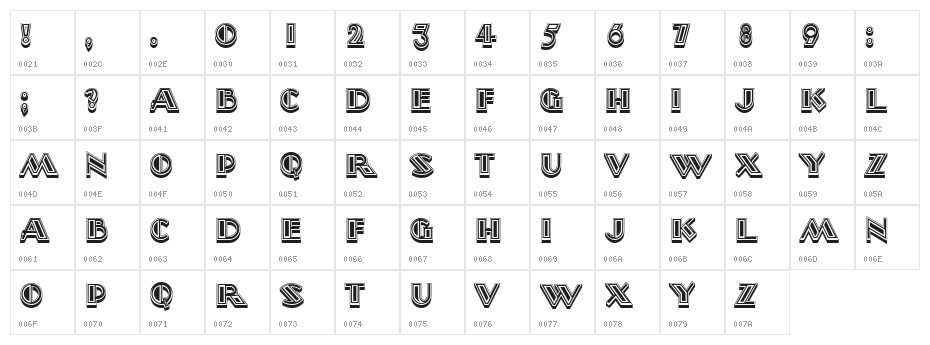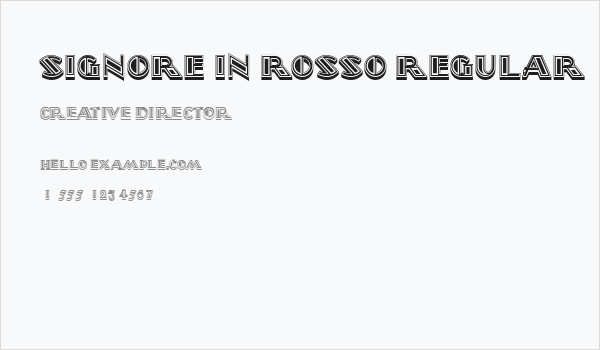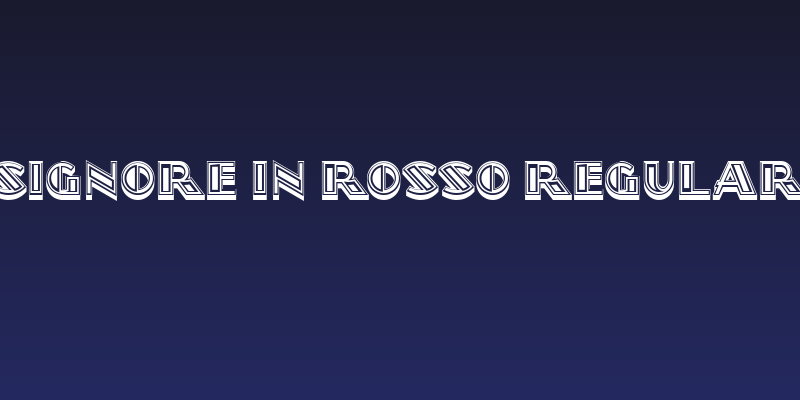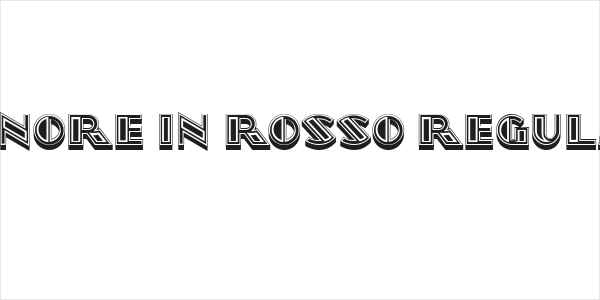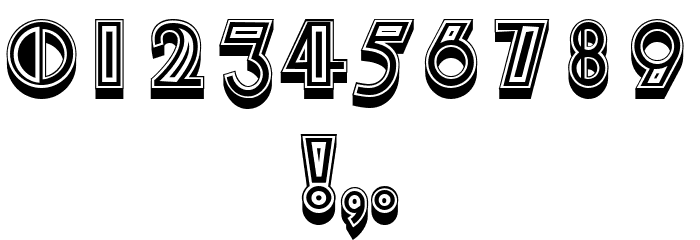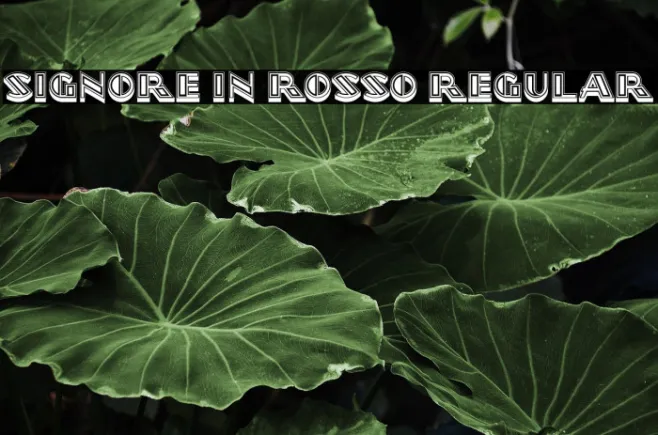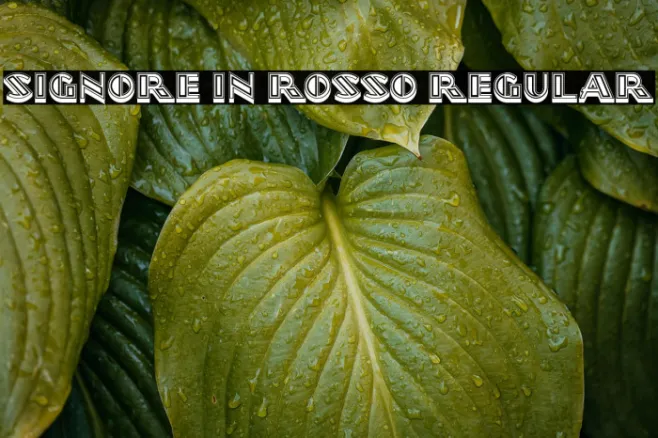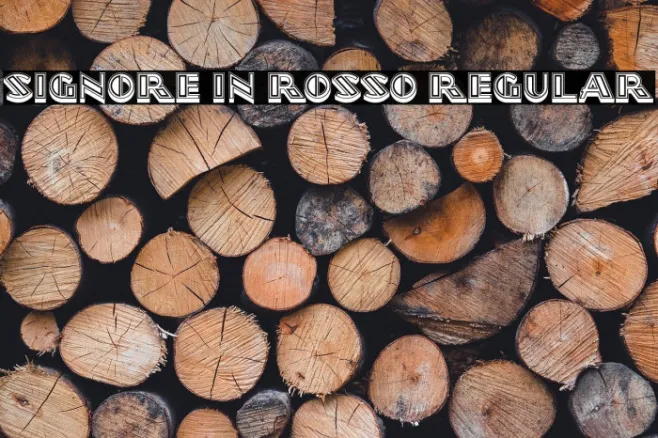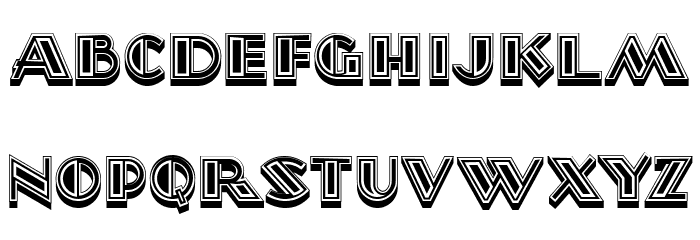
Signore in Rosso Regular Font
Signore in Rosso Regular Description
This font features a bold and striking design with a three-dimensional effect, created by the use of layered outlines and shadows. The characters are uppercase and have a geometric, angular style that gives them a modern and dynamic appearance. The font includes both letters and numbers, as well as a selection of special characters. The overall design is reminiscent of Art Deco influences, with its clean lines and decorative elements. The spacing between characters is relatively tight, enhancing the compact and impactful look of the text. This font is ideal for creating eye-catching headlines or titles that need to stand out.
| Proposed Projects | Ideal for use in posters, logos, branding, and any design requiring a bold, decorative headline. |